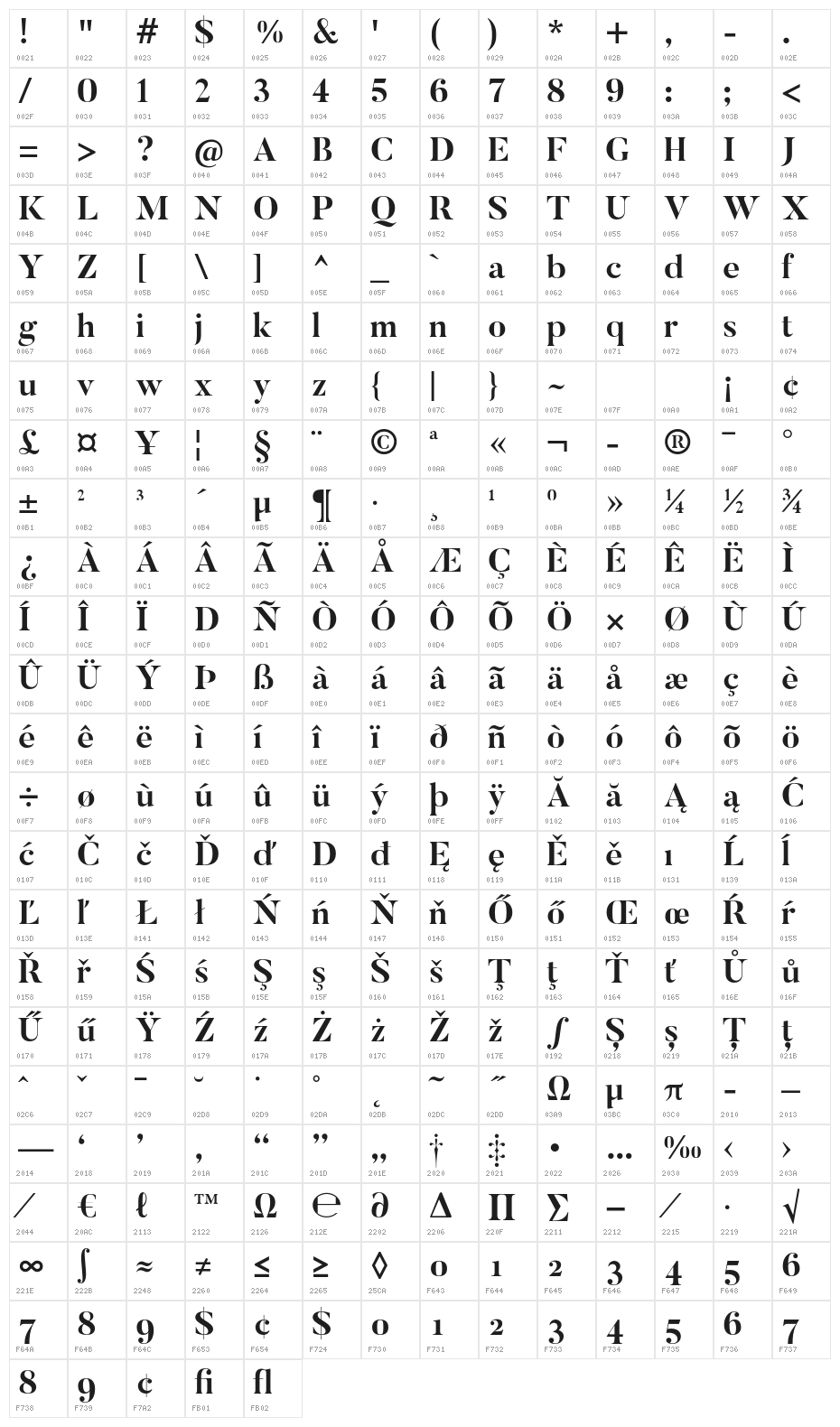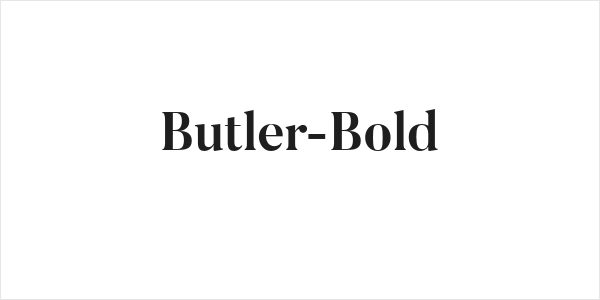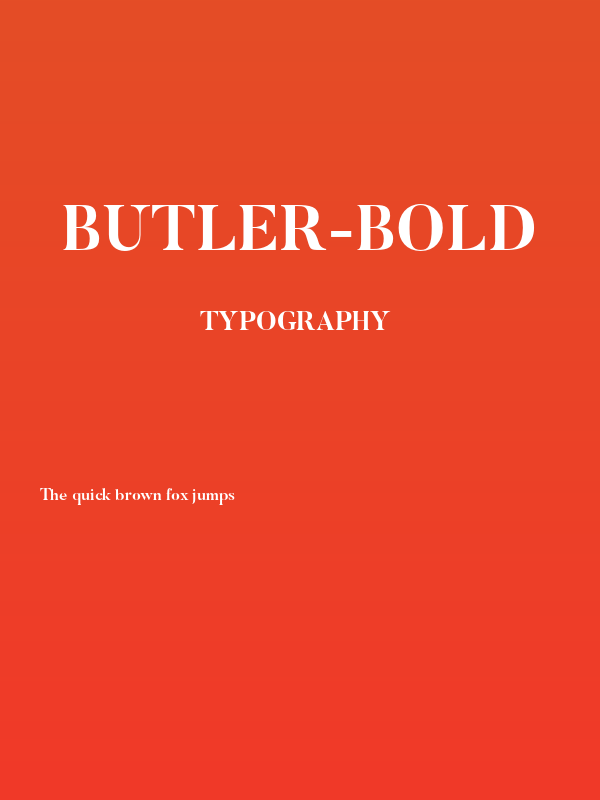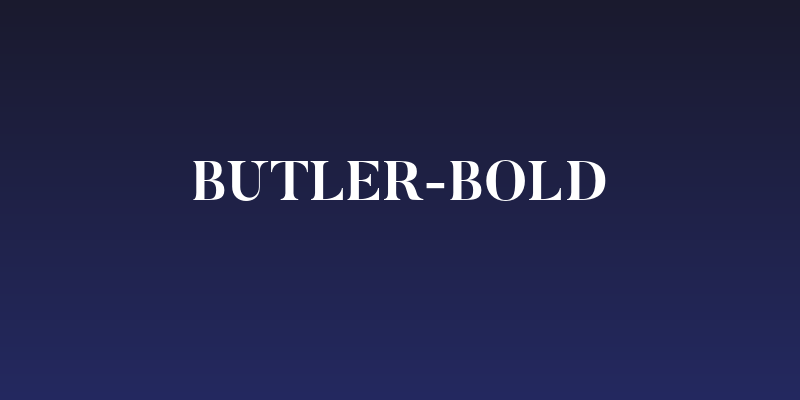
Butler-Bold Font
Butler-Bold Description
This font features a bold and elegant serif style, characterized by its high contrast between thick and thin strokes. The uppercase letters exhibit a classic and sophisticated look, while the lowercase letters maintain a harmonious balance with slightly rounded edges. The numerals are clear and distinct, making them easily readable. Special characters are designed with the same attention to detail, ensuring consistency across all glyphs. This font is versatile, suitable for both modern and traditional design projects, offering a timeless appeal.
Overall StyleClassic
Use CaseHeadlines, Logos, Editorial design
Proposed ProjectsIdeal for branding, editorial design, book covers, and luxury product packaging.